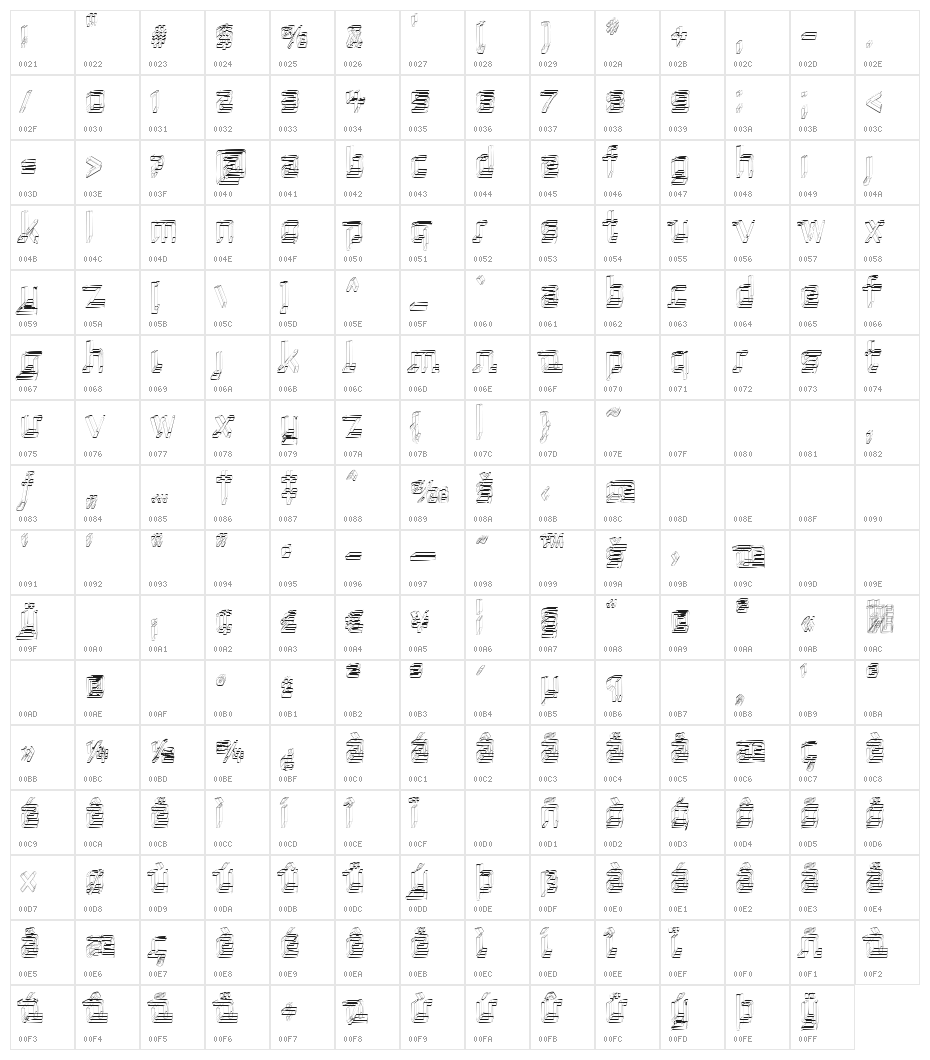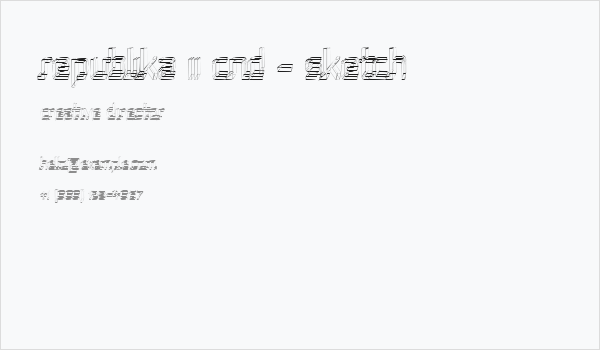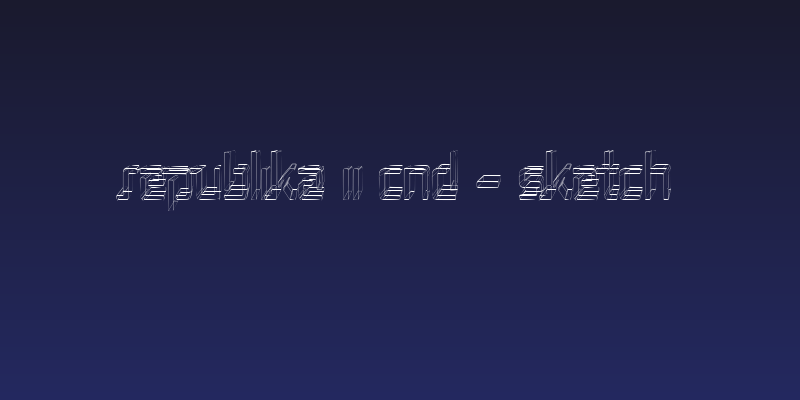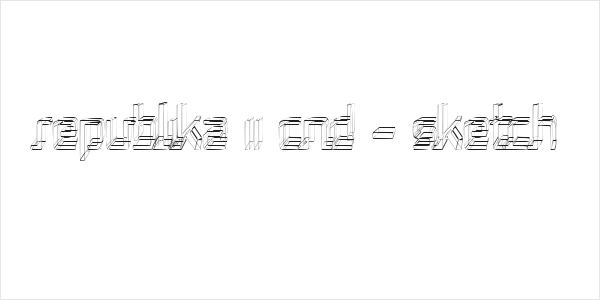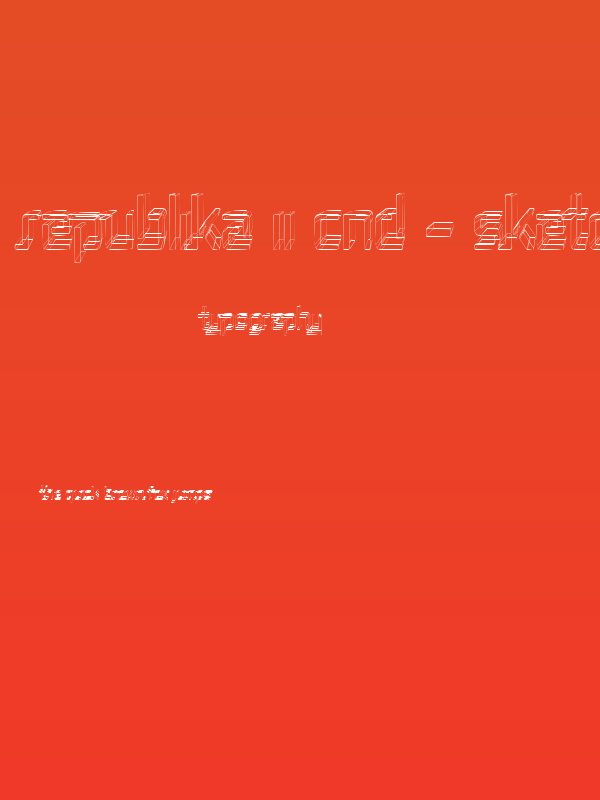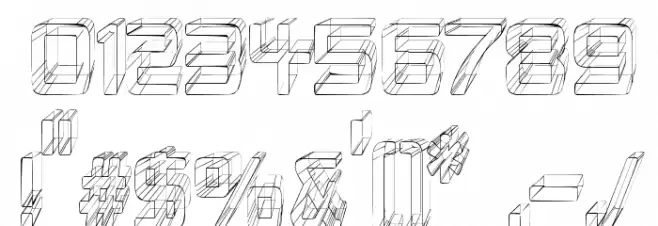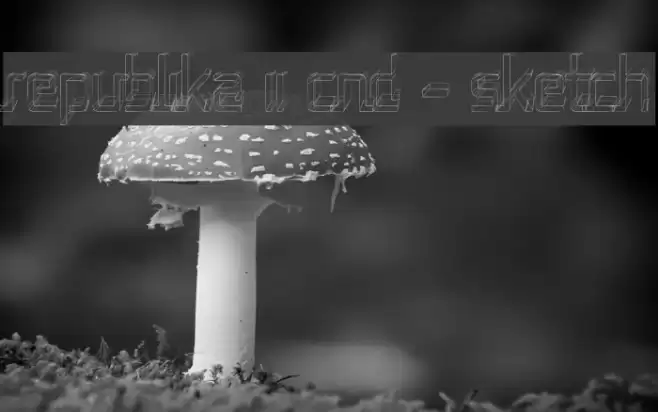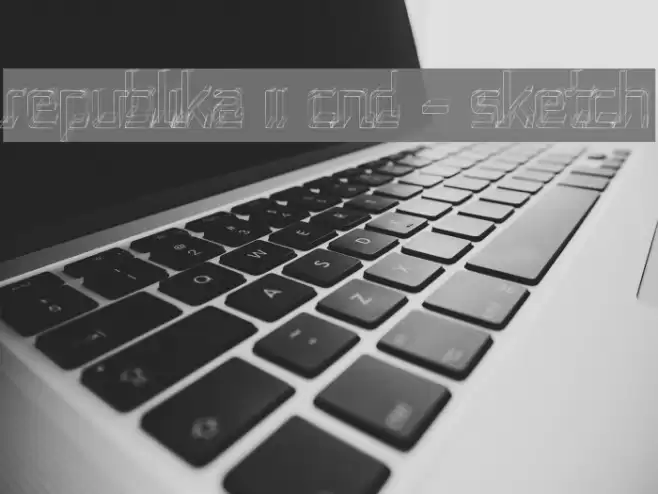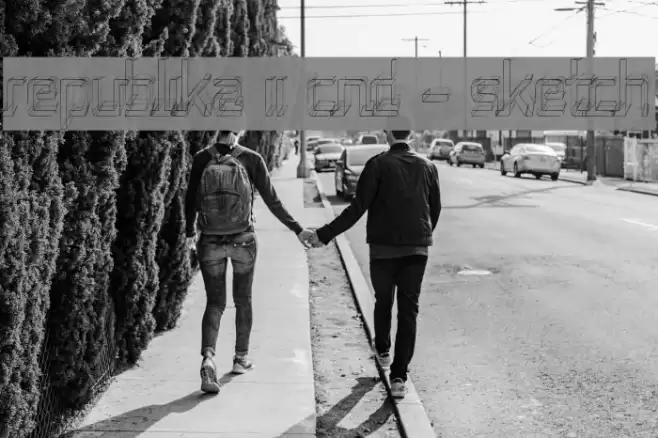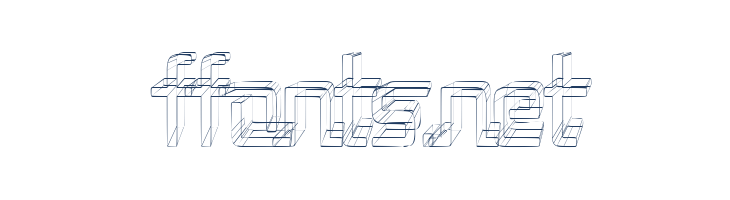
Republika II Cnd - Sketch Font
Republika II Cnd - Sketch Description
This font features a unique, sketch-like design with a three-dimensional appearance. Each character is outlined with multiple lines, creating a sense of depth and movement. The style is geometric and structured, with consistent angles and straight lines that give it a modern and technical feel. The uppercase and lowercase letters maintain a uniform height, while the numbers and special characters follow the same design principles, ensuring cohesion across all elements. This font's distinct sketch style makes it stand out, offering a creative and artistic touch to any project.
| Proposed Projects | Ideal for creative projects such as posters, album covers, and digital artwork where a unique and artistic font is desired. |